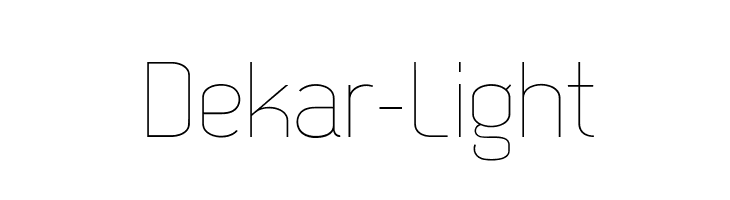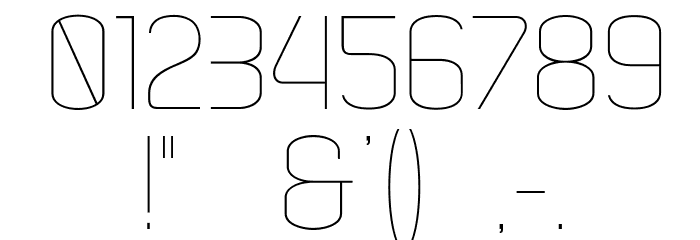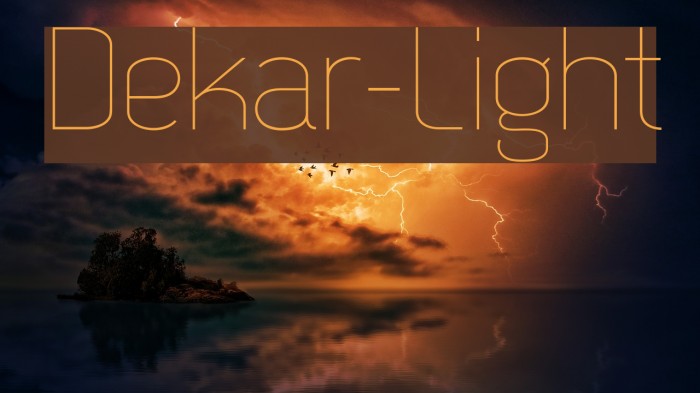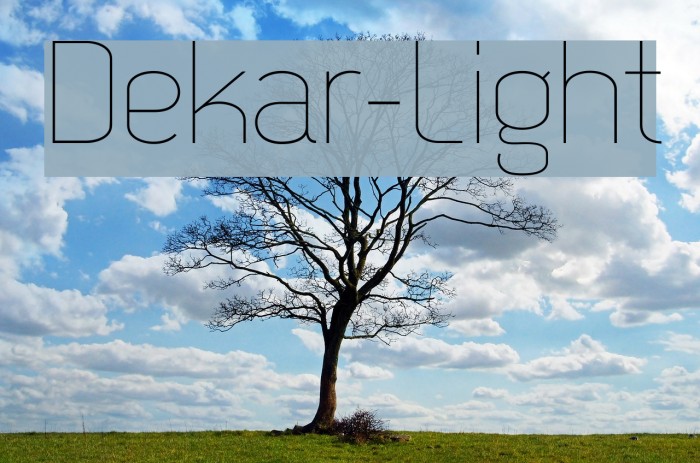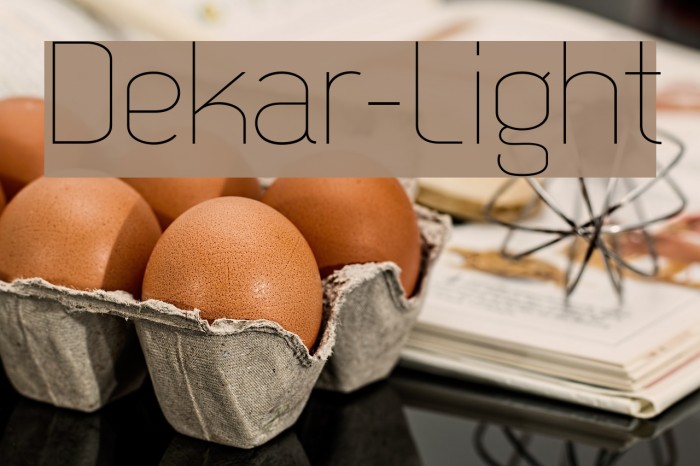
Dekar-Light Font
Dekar-Light Description
This font features a sleek, modern design with clean, geometric lines and a minimalist aesthetic. The characters are constructed with uniform stroke widths, giving it a consistent and balanced appearance. Its sans-serif style emphasizes simplicity and clarity, making it highly legible. The uppercase and lowercase letters maintain a harmonious relationship, with rounded edges that soften the overall look. The numerals and special characters are designed to complement the alphabet, ensuring a cohesive visual experience. This font's light weight and open character spacing enhance its readability, making it suitable for various design applications.
A modern, geometric sans-serif font with clean lines and minimalist design from Uncategorized fonts.
- Proposed Projects: Ideal for tech branding, minimalist posters, modern web design, and clean editorial layouts.